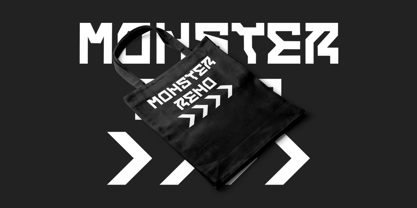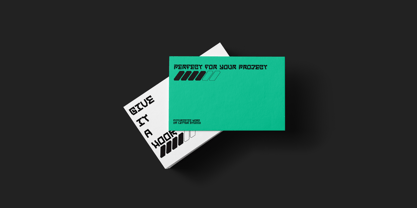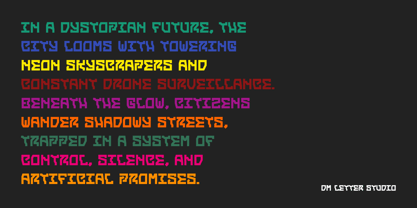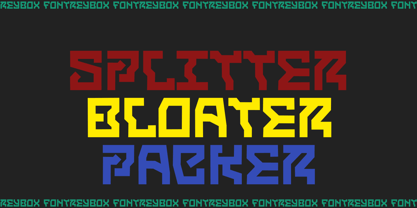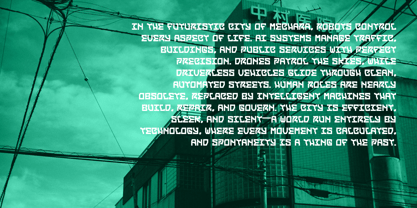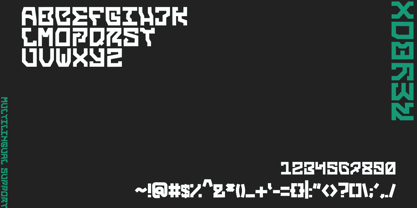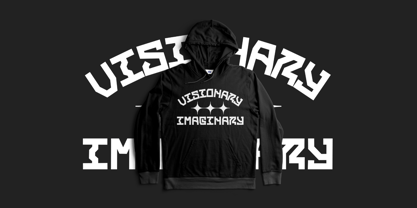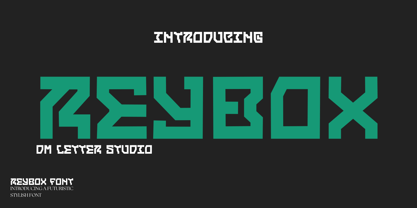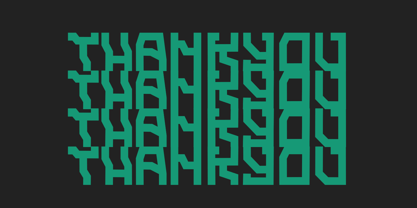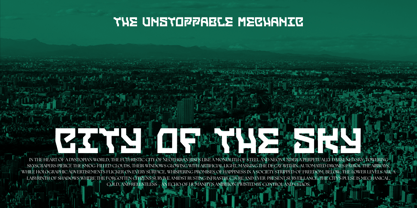
Reybox
by DM Studio
The Reybox Font Family was designed by Dimas Prasetyo and published by DM Studio. Reybox contains 1 styles.
Introducing Reybox, a bold and futuristic display font from DM Letter Studio. With sharp angles, geometric shapes, and a modern tech-inspired design, Reybox is perfect for projects that demand attention and innovation.
Ideal for sci-fi posters, tech branding, gaming titles, logos, headlines, and digital UI design, Reybox blends modern aesthetics with retro-futuristic vibes. This font is a great choice for designers looking to push boundaries and make a bold visual impact.
Features:
• Futuristic & tech-inspired design
• All uppercase letters
• Includes punctuation and symbols
• Perfect for display use: headlines, logos, posters, etc.